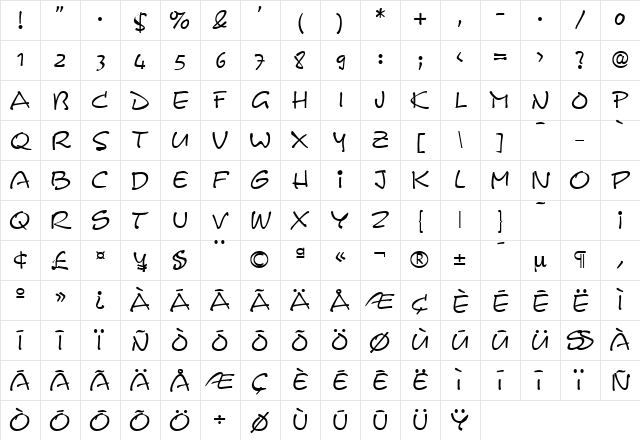
Leasterix-Regular Regular
Design Context for Leasterix-Regular
Leasterix-Regular is a composed and adaptable typeface that performs quietly and consistently across a wide range of design contexts.